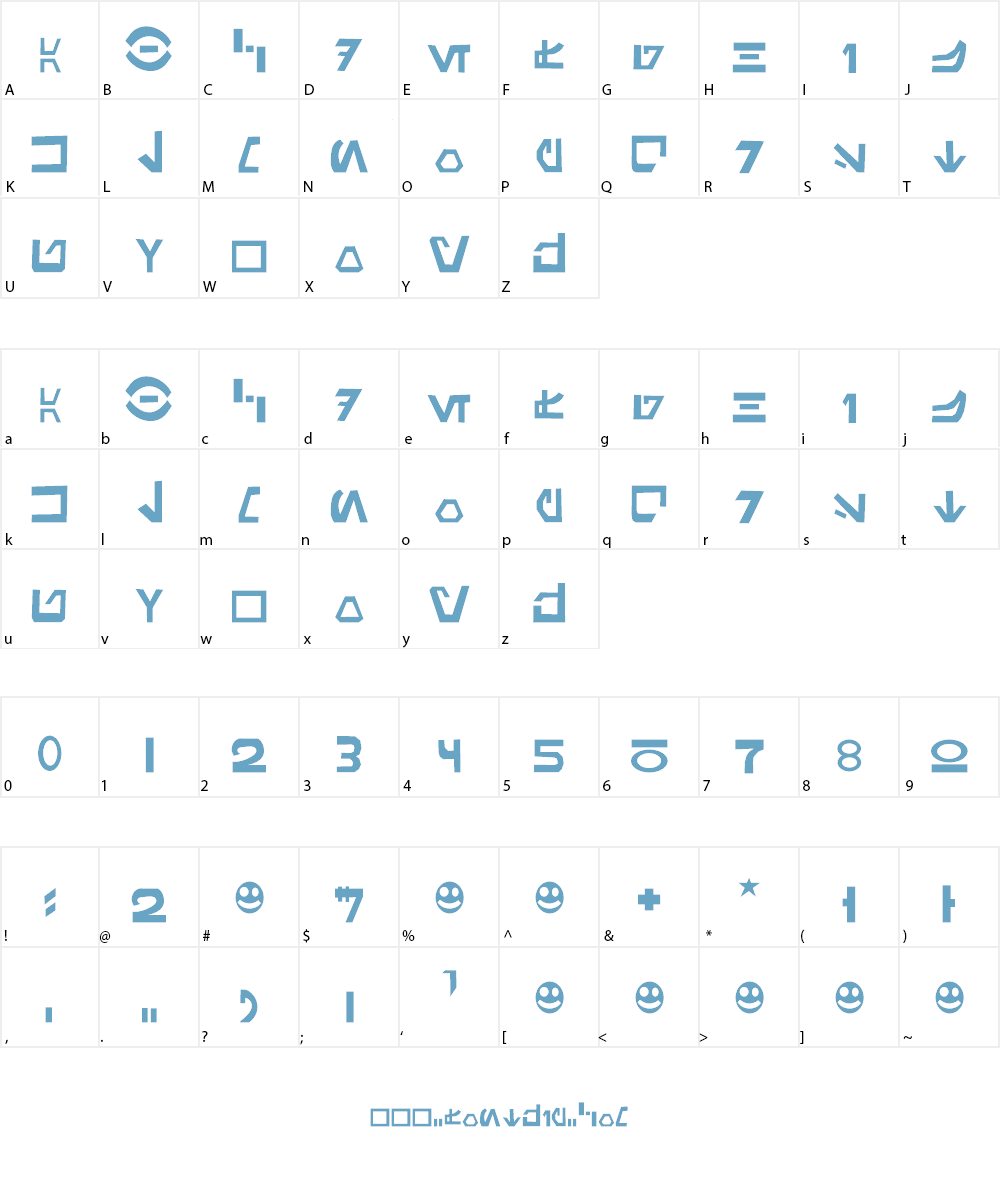
For the last time, I didn't go on to watch the latest Star Wars film called "Rouge One".
So, I made this font about Aurebesh alphabets, which are used in Star Wars films including Galactic Basic.